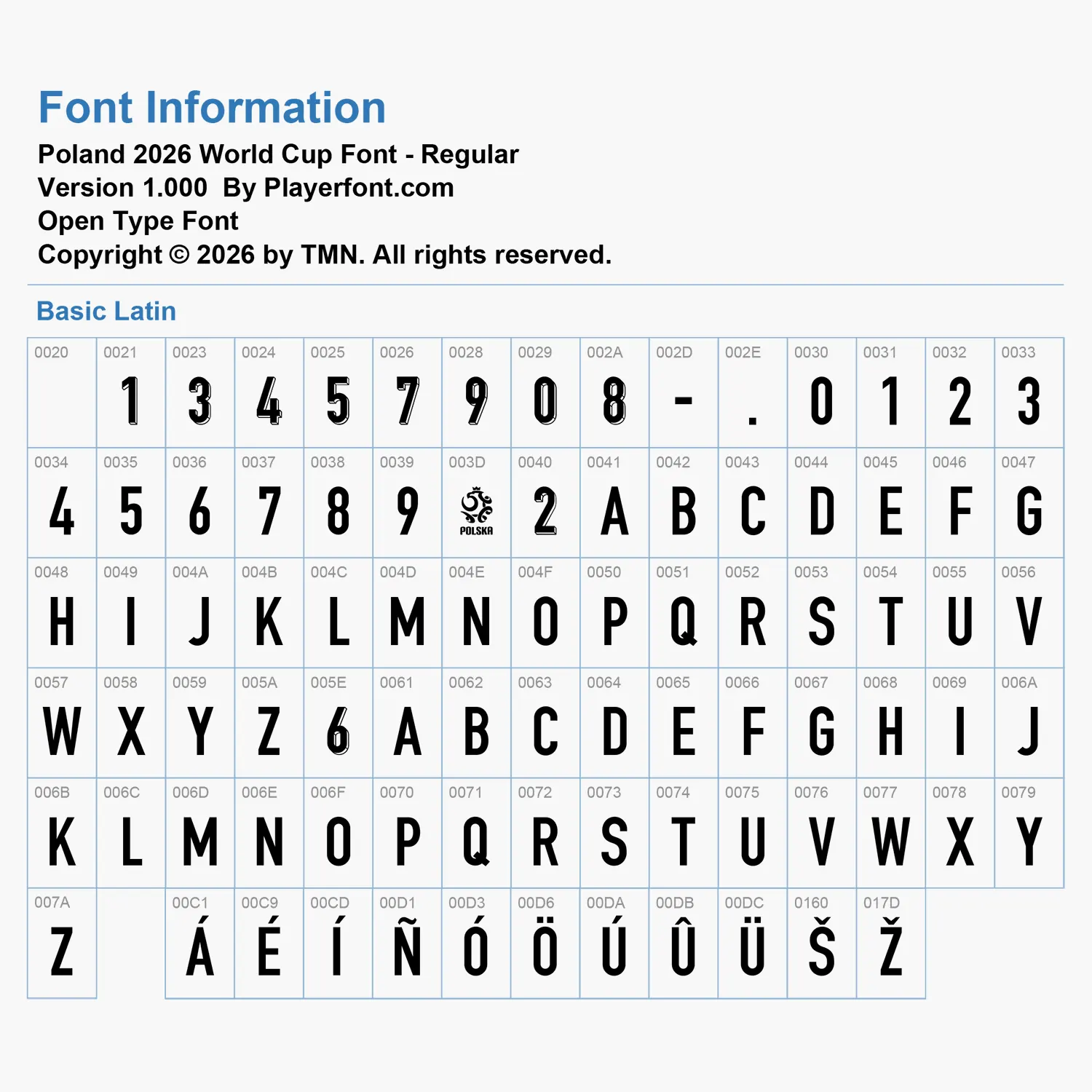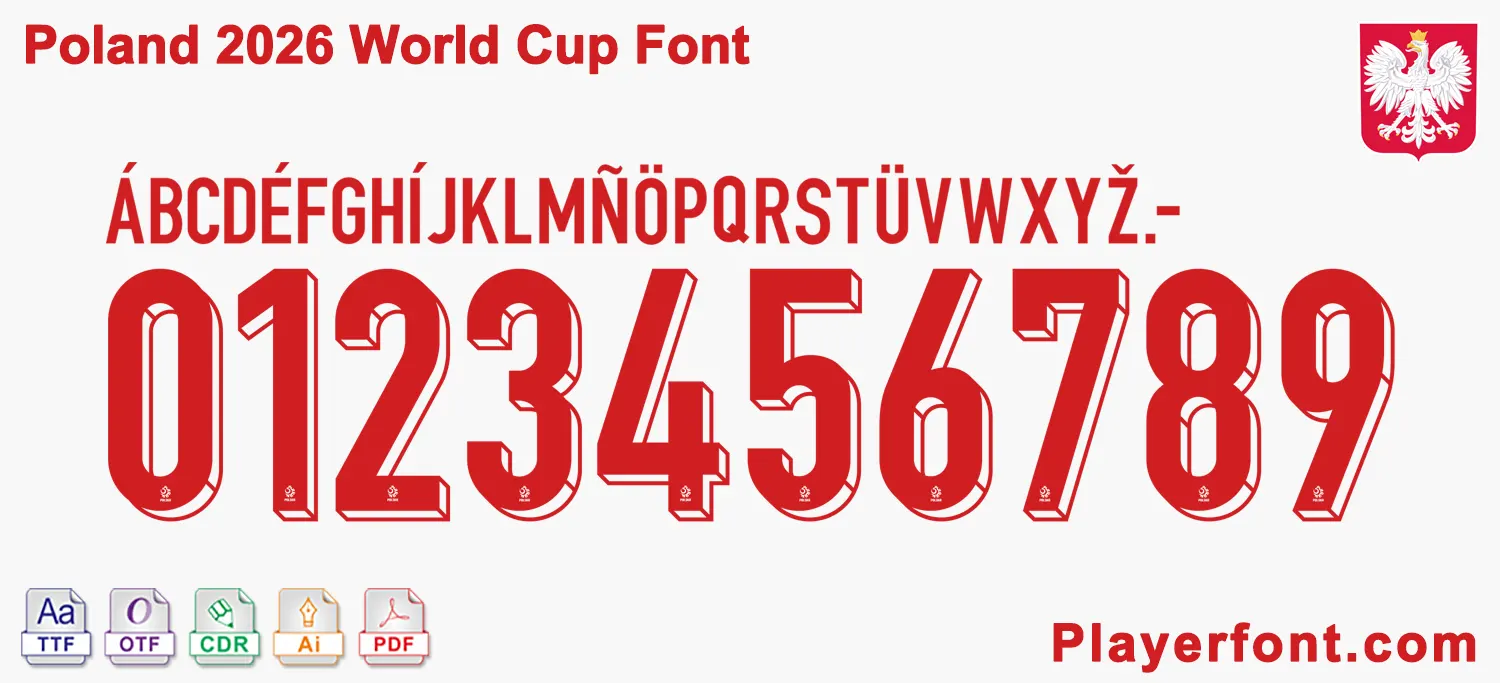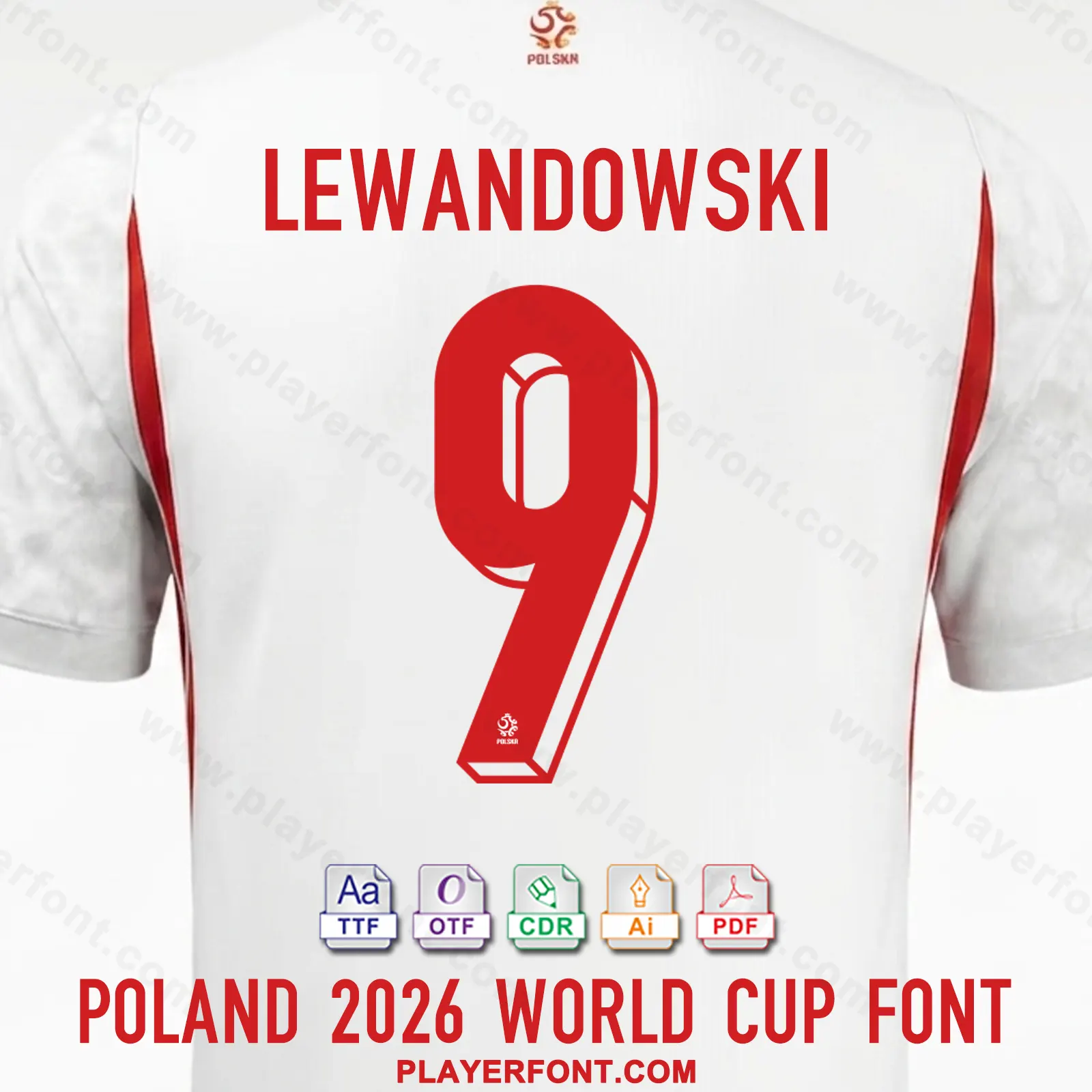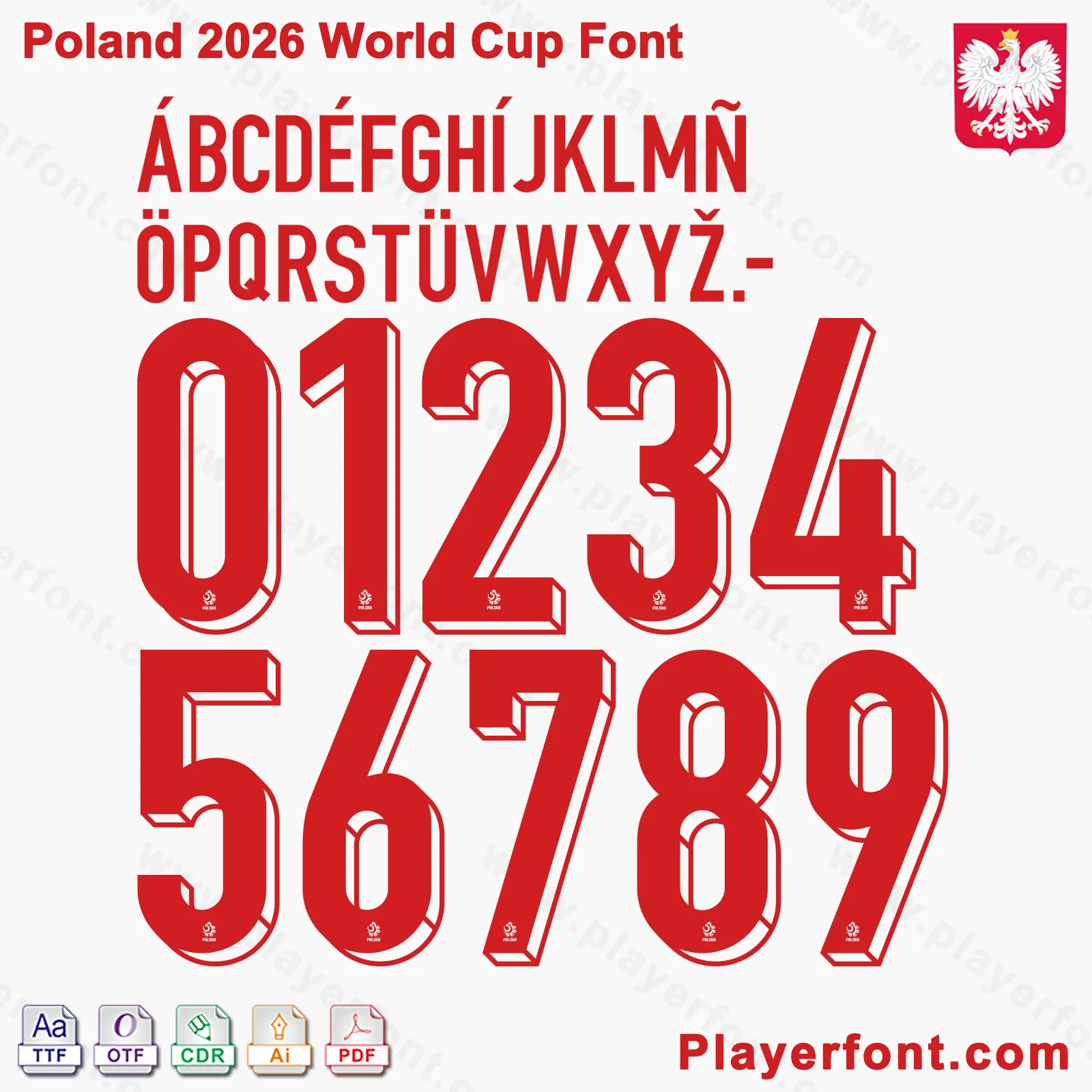
Download the premium Poland World Cup 2026 Font Kit today! This complete typography pack includes high-quality TTF, OTF, AI, CDR, and PDF vector files, fully compatible with design software and apparel printing. Features a comprehensive uppercase alphabet string (with full multi-lingual accents) and striking 3D block-shadow isometric jersey numbers embedded with the national team crest. Perfect for kit designers, sports customizers, and Bialo-czerwoni fans.
Horizontal vector layout template of Poland World Cup 2026 football kit numbers and full alphabet string.
Horizontal Vector Preview Banner for the Poland World Cup 2026 Font
Elevate your sports jersey mockups, football custom graphics, and vector apparel printing projects with the high-quality Poland World Cup 2026 Font Download. Masterfully engineered by Player Font, this high-performance typography set replicates the official-style numbers and clean lettering featured on the pitch for the upcoming FIFA 2026 international tournament campaigns.
Key Typography Features & Character List:
This typography pack is fully optimized to support international player rosters and diverse numbering layouts:
• Basic Latin Set: Contains the complete A-Z uppercase character set, tall condensed block letters, numbers (0-9), periods, and hyphens.
• Advanced International Accent Support: Includes a complete set of accents (such as Á, É, Í, Ñ, Ó, Ö, Ú, Û, Ü, Š, Ž) ensuring flawless rendering for global football stars and localized Polish naming requirements (such as Lewandowski, Szymański, etc.).
• Authentic Visual Details: The jersey numbers feature a premium 3D block-shadow isometric extrusion style that provides incredible depth on the fabric, paired with the official Polish national eagle crest beautifully embedded at the base of each number.
Design Feature 3D Isometric Extrusion with Clean Block Shadow & National Crest Inlay